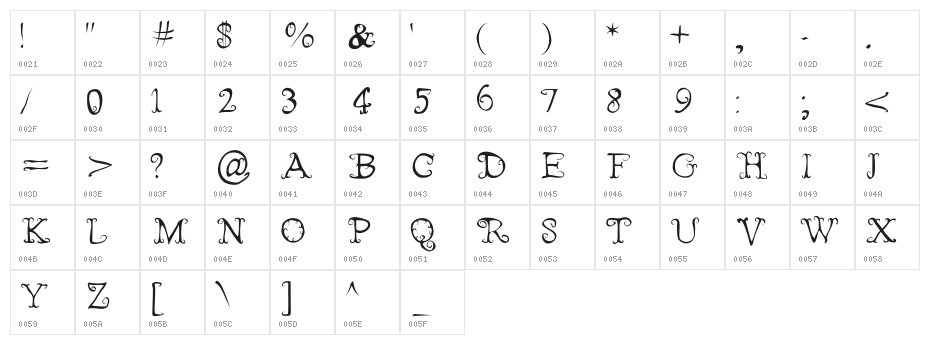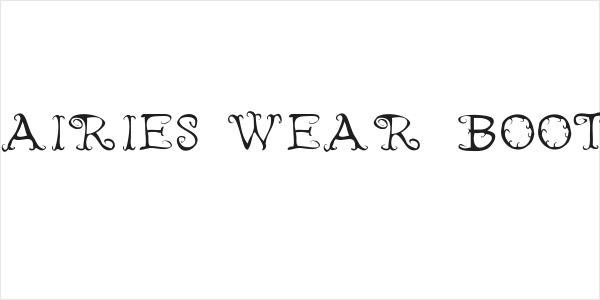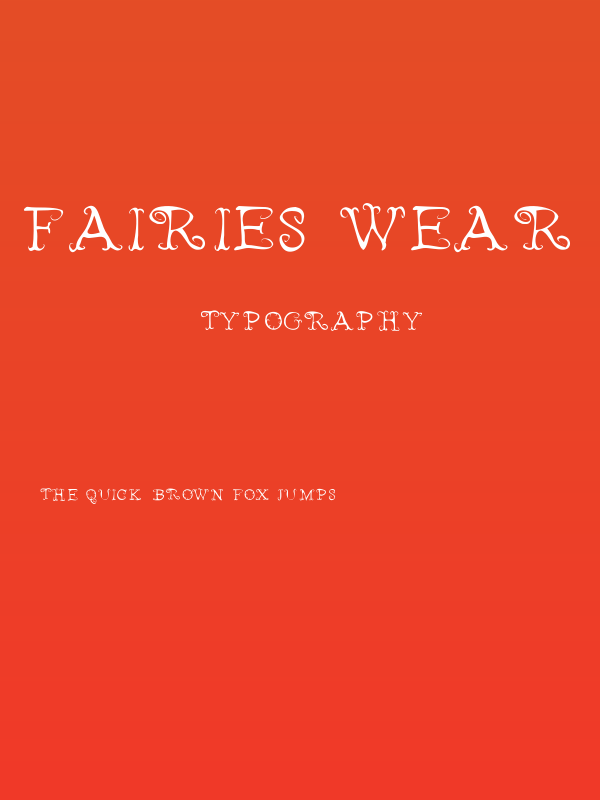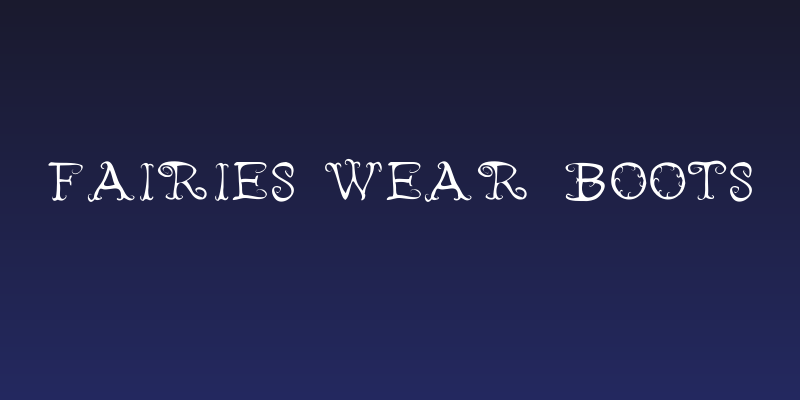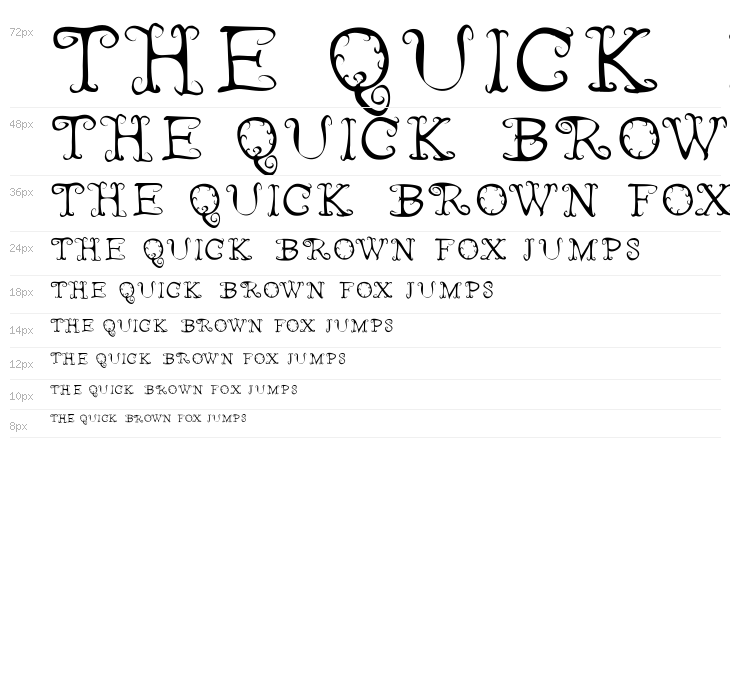
Fairies Wear Boots Font
Fairies Wear Boots Description
This whimsical and decorative font features playful curls and swirls on each character, giving it a fairy-tale or fantasy-like appearance. The uppercase and lowercase letters maintain a consistent style, with elegant embellishments that add a touch of magic and creativity. The numbers and special characters are equally ornate, ensuring a cohesive look across all text elements. This font is perfect for projects that require a touch of enchantment and charm, such as invitations, greeting cards, or fantasy-themed designs.
| Proposed Projects | Ideal for fantasy-themed designs, invitations, greeting cards, and magical event branding. |